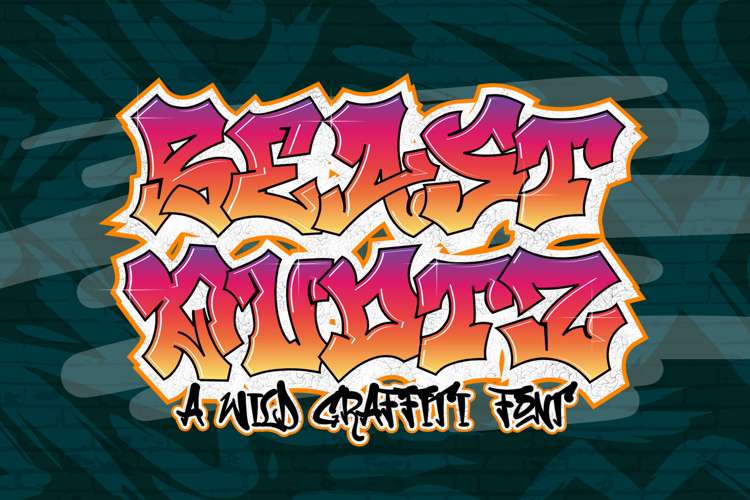
Beast Quotz | Wild Graffiti Font
Beast Quotz is a fierce wild graffiti font built for chaos, rebellion, and raw creativity. Featuring ALL CAPS letters in both Solid and Outline styles, it brings that authentic, beast-mode street vibe to your designs. From murals and rap album covers to YouTube thumbnails and edgy event posters—this font doesn’t whisper, it roars.
It supports multilingual characters, so your street art can speak to the world. Whether you're going for bold aggression or layered expression, Beast Quotz gives you the tools to dominate the scene with unapologetic impact.
✦ Key Features: All Caps Typeface Solid & Outline Versions Included Wild, hand-drawn graffiti style Multilingual support (Latin-based characters) Works in print and digital environments Perfect for music visuals, urban branding, and more Comes in OTF/TTF formats
Why Designers Love It: Designers love Beast Quotz because it delivers punch, presence, and street authenticity in every letter. The dual style (solid and outline) gives them the flexibility to mix and match while maintaining that graffiti energy. It’s a go-to for raw, high-impact visuals where perfection is the enemy and expression is king.
Dominate the Streets with Words. Beast Quotz doesn’t just tell a story—it yells it from alley walls and underground stages. It’s built for creators who want to grab attention and never let go. If your design needs to break rules and go wild, then it’s time to unleash Beast Quotz and let the visuals do the growling.